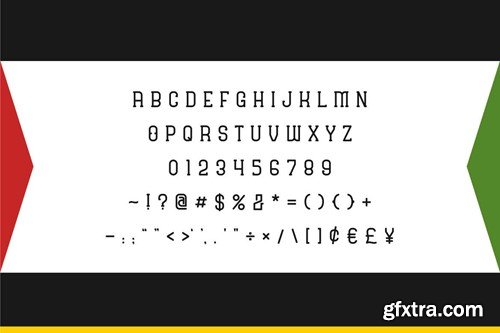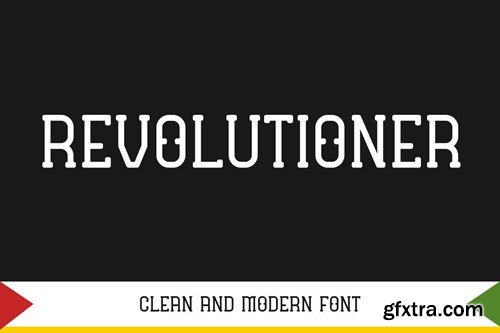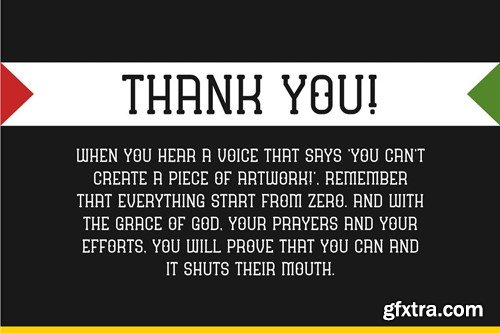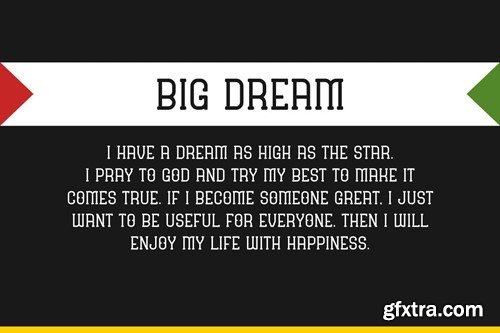
革命者 - 清新现代字体
Revolutioner - Clean and Modern Font QGJ4SSQ
Revolutioner - Clean and Modern Font
Hello! Revolutioner is a clean and modern font. Revolutioner can be used in any works such as comic book, poster, school, flyer, book title, advertisement, social media content, logo and many more.